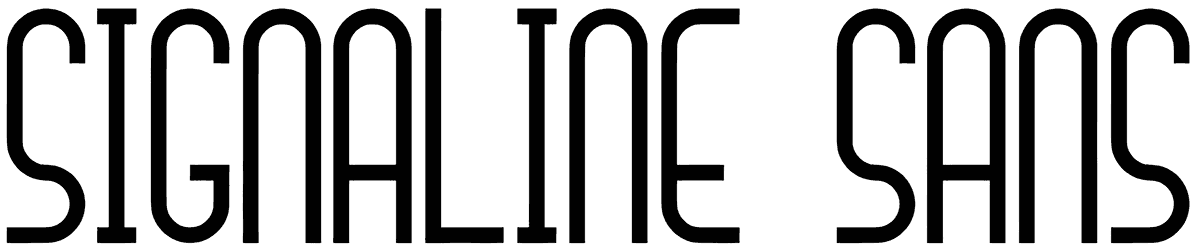
Signaline Sans Font
As a unique and eye-catching item, this sans serif font can adorn your words and add your design a captivating vibe. The tall and distinct form of characters will make your design unforgettable even without lowercase letters, numbers, and punctuation marks. Use the Signaline Sans for your next project and see the cool outcome.